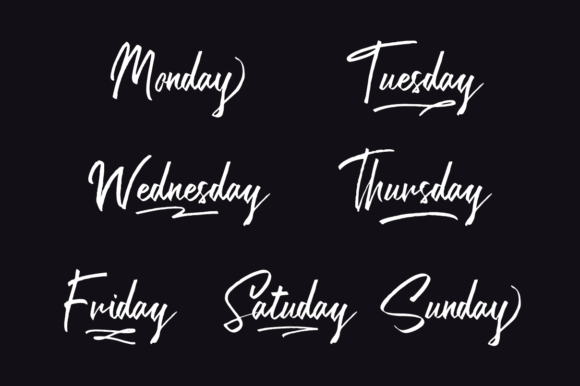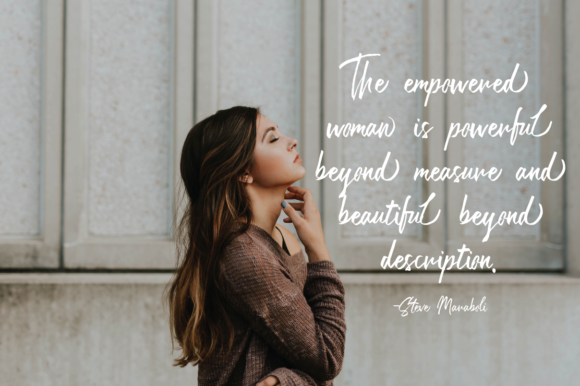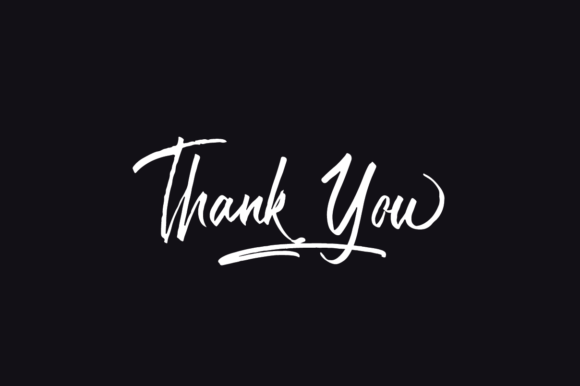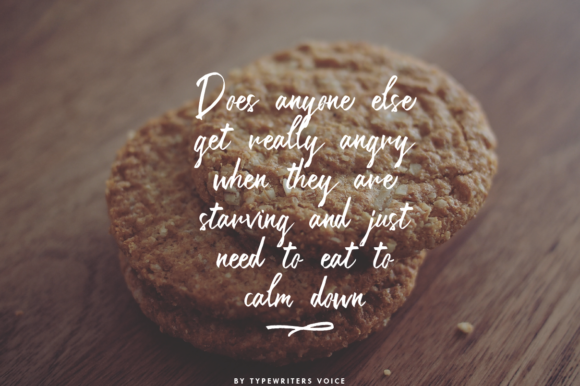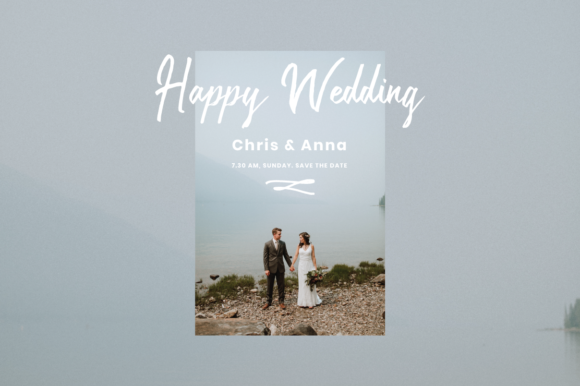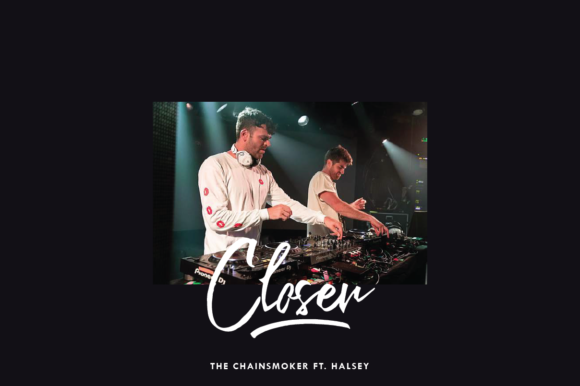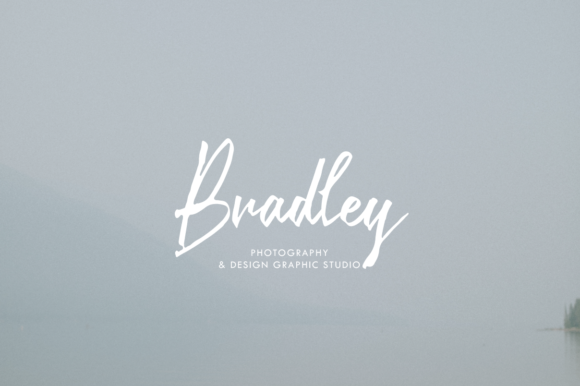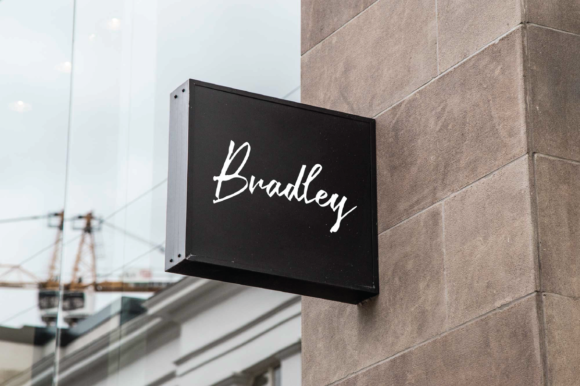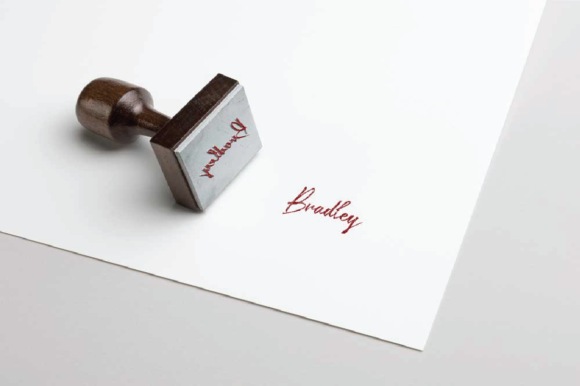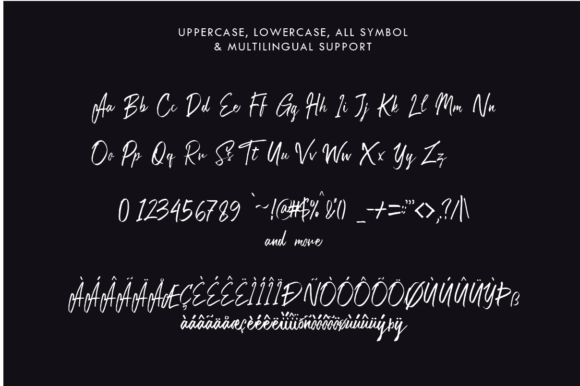
Copenhagen Font
About Copenhagen Font
Copenhagen is a cute and bold handwritten font with a unique feel. It will turn any design project into a true standout!